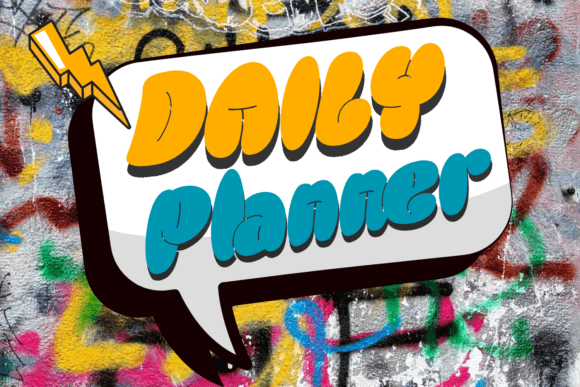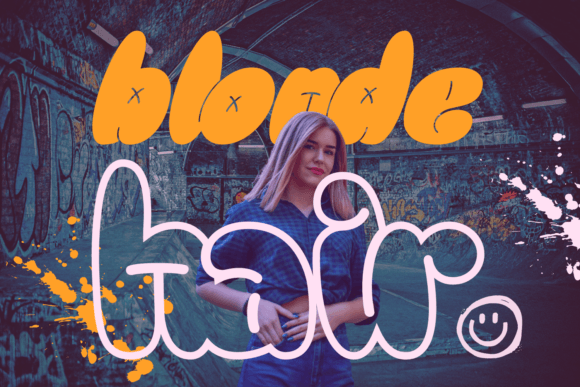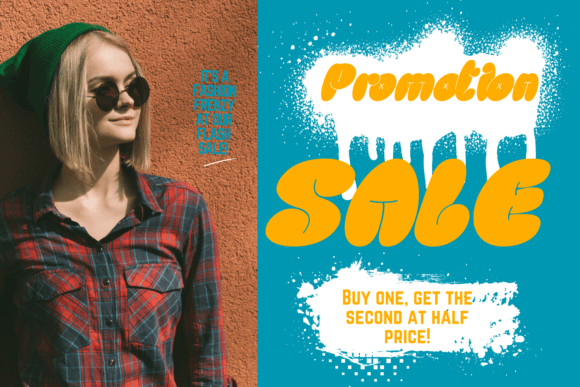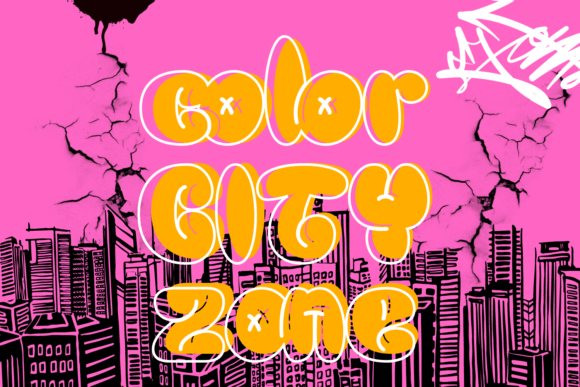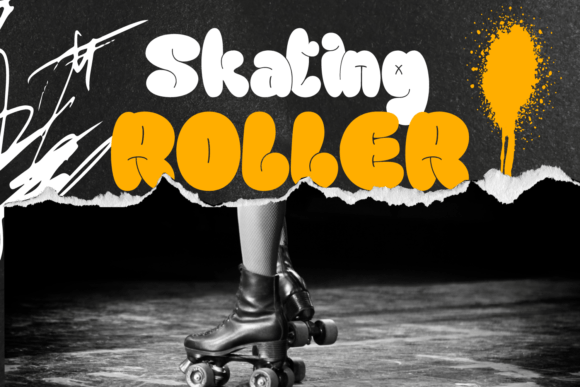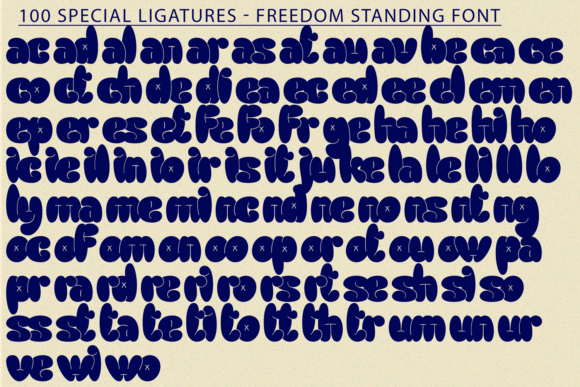
Introduction to Freedom Standing Font
Freedom Standing Font is a dynamic font family that fuses the vibrant essence of bubble lettering, graffiti, urban street art, and skateboarding culture.
| 👤 Author | 177Studio |
This font collection seamlessly combines a sans-serif typeface with playful and eye-catching design elements, resulting in an effortlessly cool and highly legible combination This type is very suitable for making a streetwear brand, poster or magazine layout, fashion design, quotes, or simply as a stylish text overlay to any background image.
Key Features of Freedom Standing Font
Why Choose Freedom Standing Font?
Freedom Standing Font offers exceptional quality and versatility, making it a valuable addition to your design toolkit. Whether you’re creating for personal projects or commercial use, Freedom Standing Font delivers professional results.